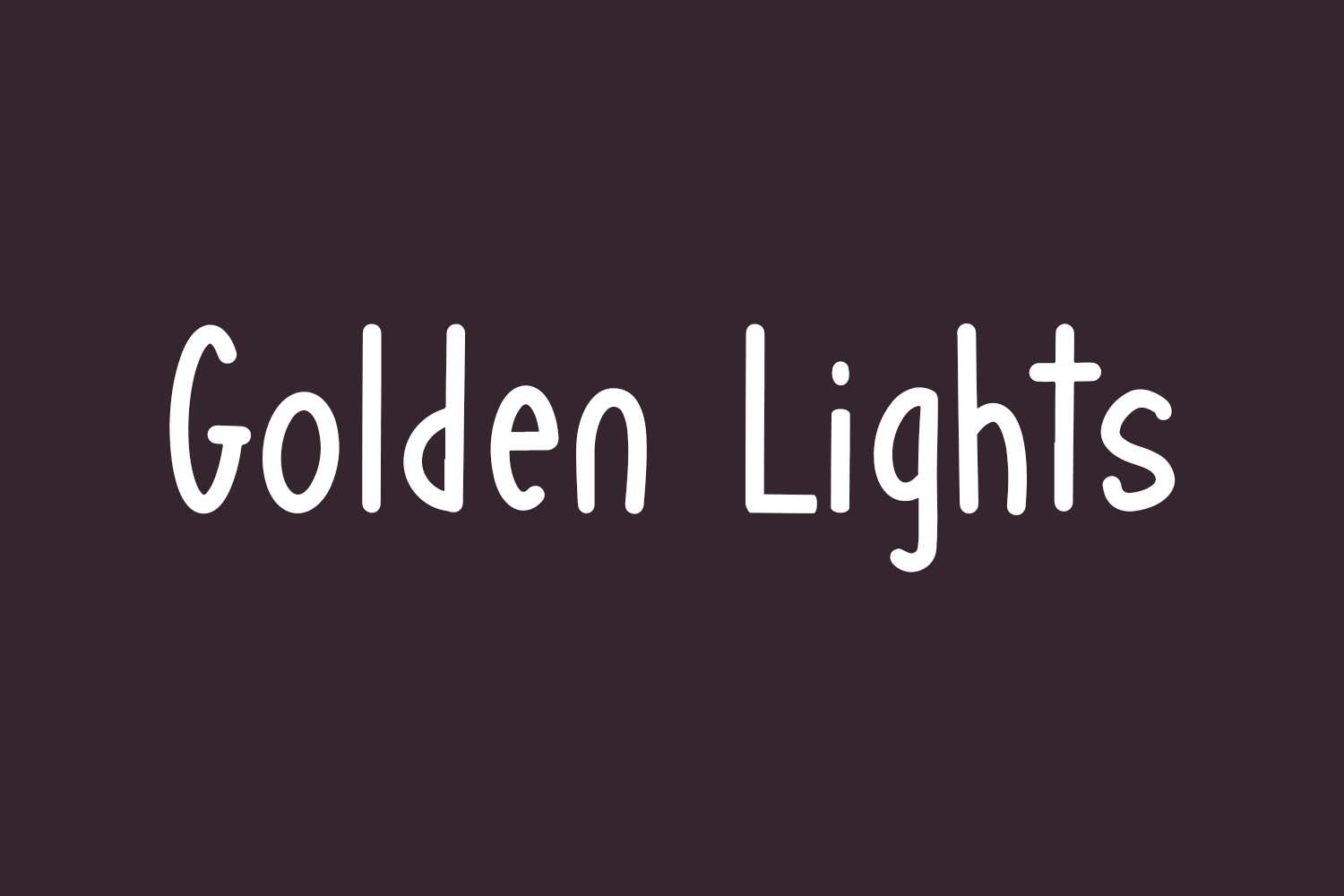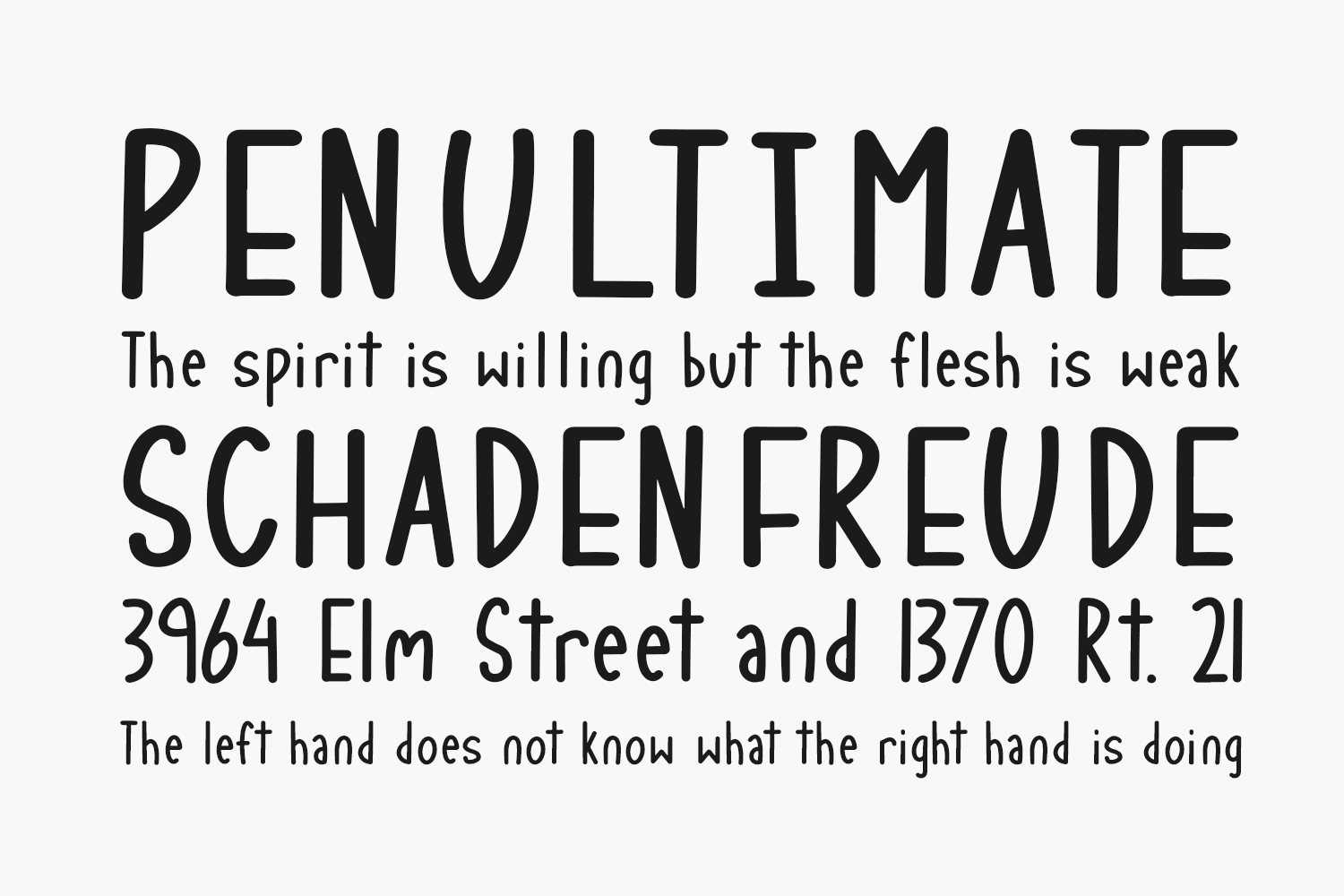
Say hello to the Golden Lights Free Font – a cute and quirky display font that exudes a unique and playful charm. With its simple and clean lettering, this font is the perfect choice for adding a touch of playfulness to any design. Whether you’re creating posters, social media graphics, or product packaging, the font is sure to add a touch of personality and charm. Its unique appeal makes it a great choice for any project looking to stand out from the crowd.